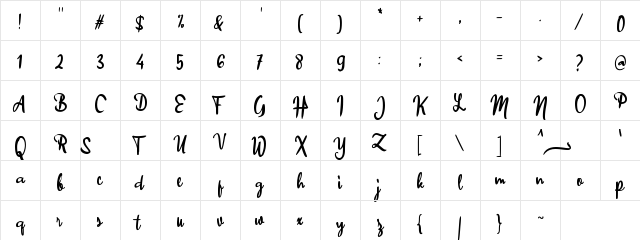
a Alangkah Regular Font Preview
a Alangkah Regular
a Alangkah Regular Font Details
| Designer | Wahyu Eka Prasetya |
Design Context for a Alangkah Typeface
a Alangkah is a composed and adaptable typeface that performs quietly and consistently across a wide range of design contexts.